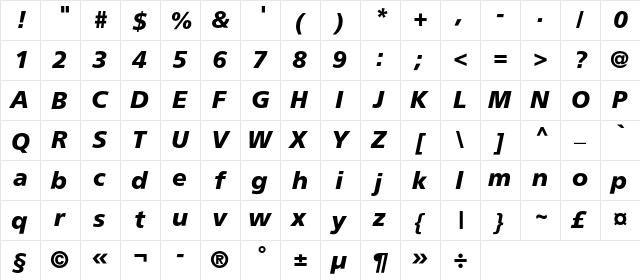
AGForeignerC Bold Italic Font Preview
AGForeignerC Bold Italic
AGForeignerC Bold Italic Font Details
Design Context for AGForeignerC Typeface
AGForeignerC is a composed and adaptable typeface that performs quietly and consistently across a wide range of design contexts. The slanted form adds forward momentum and visual energy. The heavy weight commands attention and anchors typographic hierarchies.
Pro Tip: Try AGForeignerC for annotation and caption copy alongside an upright companion — the contrast in angle creates a dynamic but ordered typographic system.